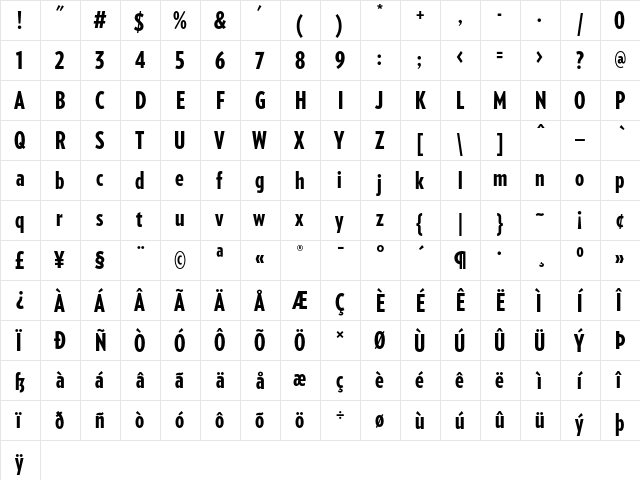
Verlag Compressed Black
| Foundry | Hoefler & Frere-Jones |
| Designer | Hoefler & Frere-Jones |
Design Context for Verlag Compressed Typeface
Verlag Compressed offers clean, dependable letterforms without strong stylistic allegiance, making it a practical choice for designers who need flexibility.